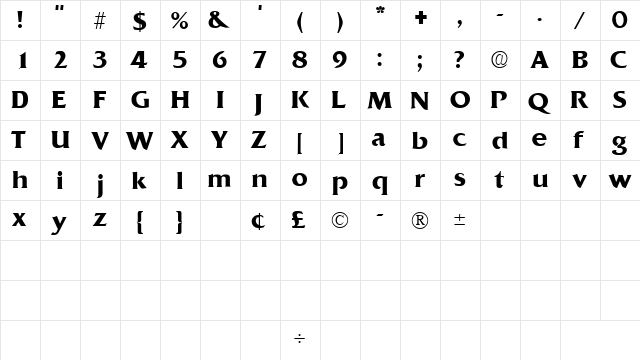
AnticlaireSSK Regular
Design Context for AnticlaireSSK Typeface
AnticlaireSSK takes a measured approach to typography — its balanced proportions and neutral character make it a reliable workhorse for both digital and print work.